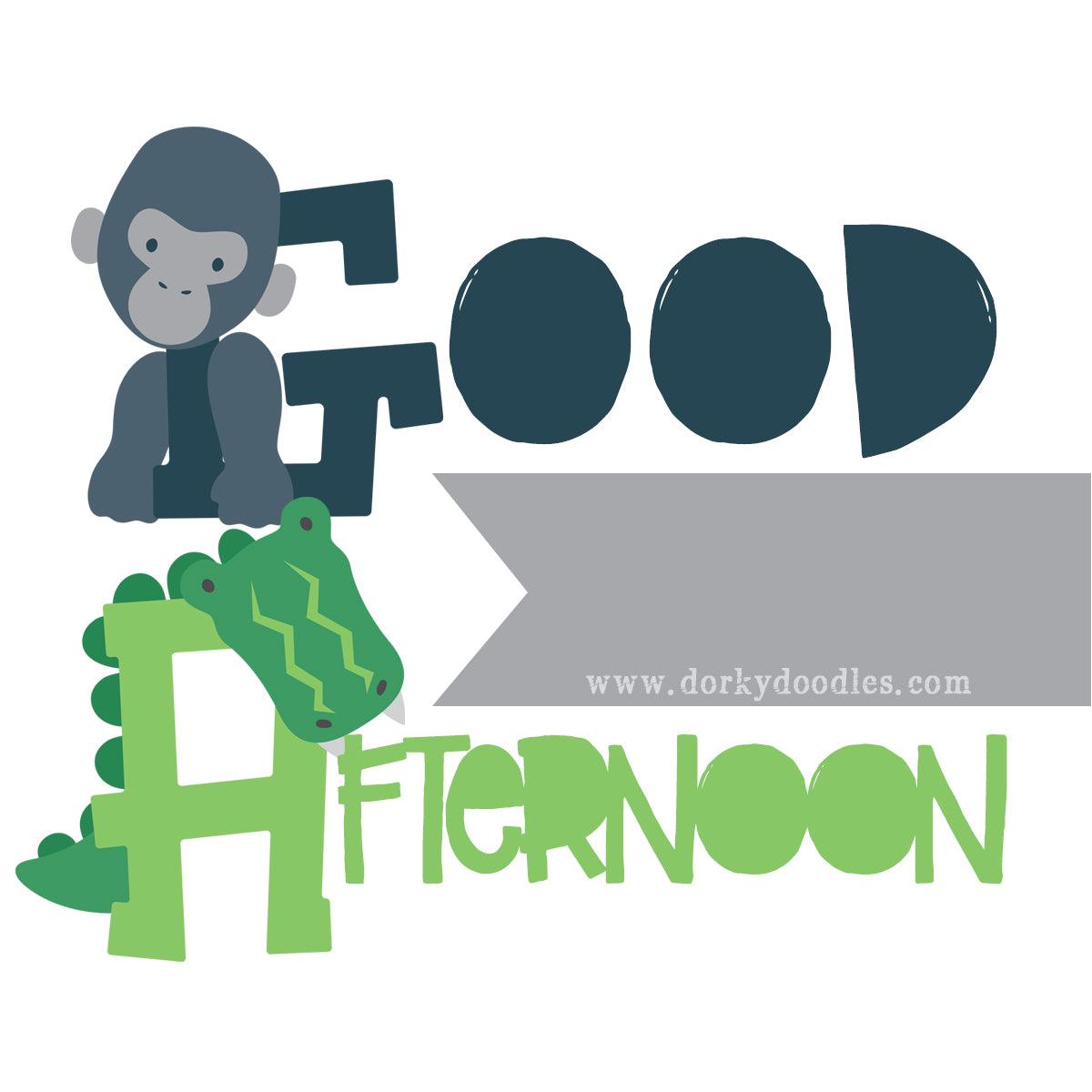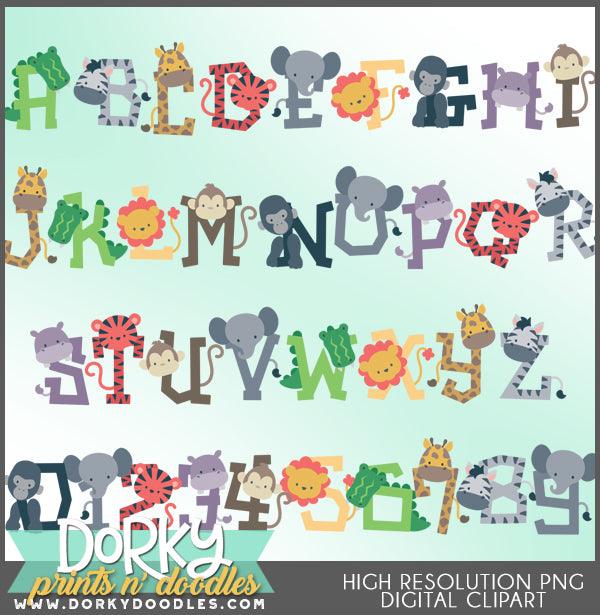
Jungle Animals Alphabet Clipart
These cute jungle animal letter and number images look fabulous in scrapbooks, party invitations, planners, and home decor! You will get 36 Digital Clip Art images in high resolution PNG format (they come as a ZIP file that you can download instantly once payment has cleared).
• A-Z letters with jungle animal faces and tails
• 0-9 numbers with jungle animal faces and tails